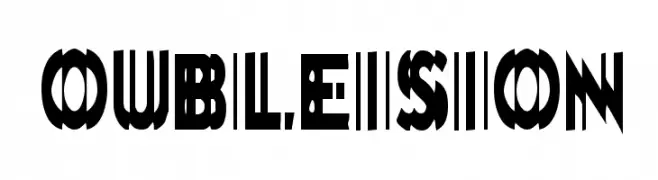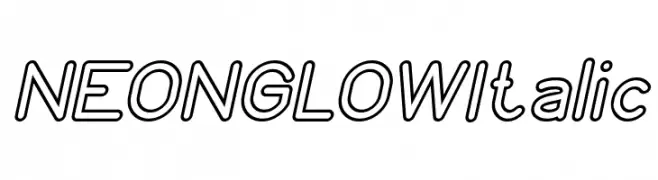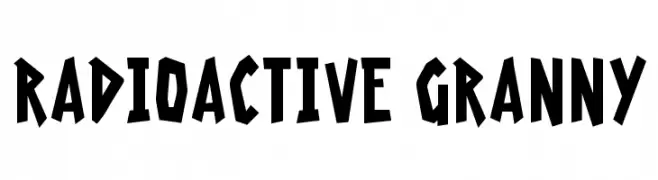
A bold, outlined sans-serif font with a neon light effect.
A modern, italicized outline font with a neon-like appearance.
A bold, angular font with a dynamic, edgy style.
A bold, playful font with rounded edges and a graffiti-inspired style.
A bold, decorative font with intricate patterns and festive flair.
A decorative font with African-inspired patterns and silhouettes.
A bold, dynamic font with a double-layered effect and modern aesthetic.
A playful, decorative font with colorful, rainbow-like patterns and a whimsical style.
A bold, textured font with a dynamic, decorative style.